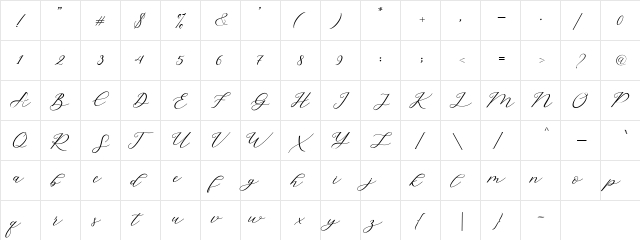
Hello Sarrah Script Regular
Design Context for Hello Sarrah Script Typeface
Hello Sarrah Script flows with the natural rhythm of handwritten lettering, making it ideal for designs that call for warmth and personal expression.
Font Pairing: Combine Hello Sarrah Script with a simple geometric sans for maximum contrast — the tension between flowing curves and clean structure is a classic typographic pairing.
Pro Tip: Use Hello Sarrah Script for short runs of text — names, titles, or taglines. Extended body copy in script faces tires the eye quickly.